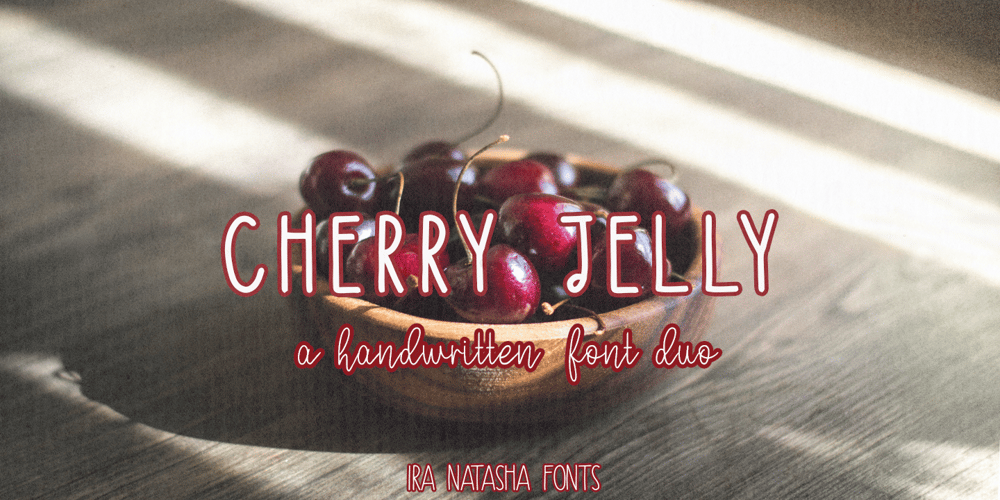
Cherry Jelly Font Family was designed by Ira Natasha and published by Ira Natasha. Cherry Jelly contains 1 styles and family package options. Cherry Jelly is a fun and cute handwritten script font. A new fresh handmade font with smooth edges. This font is support multi language. This font will perfect for many different project ex: quotes, logo, blog header, poster, branding, fashion, apparel, letter, invitation, stationery, etc….